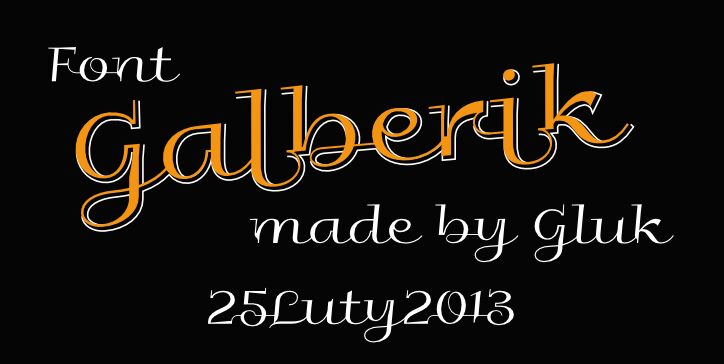
Galberik by Gluk is a free calligraphic font with an elegant, highly flourished profile. Hairline curves sweep into broad vertical strokes, giving the letters pronounced thick-thin contrast. Long loops and extended tails create a lively horizontal flow.
Its looping strokes can echo ribbon illustrations and fine ornamental borders in fashion packaging, wedding invitations, and editorial covers. In perfume branding or event posters, the lettering can become part of the decorative image rather than serving as neutral text.